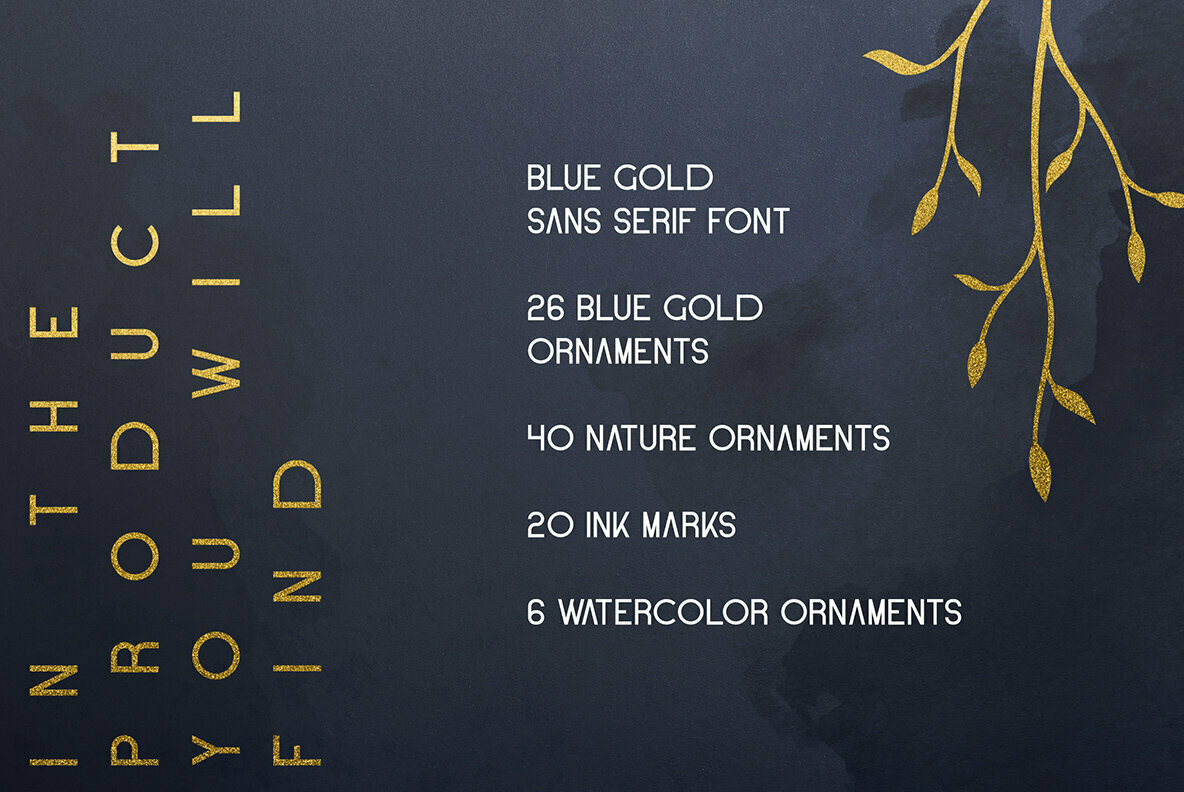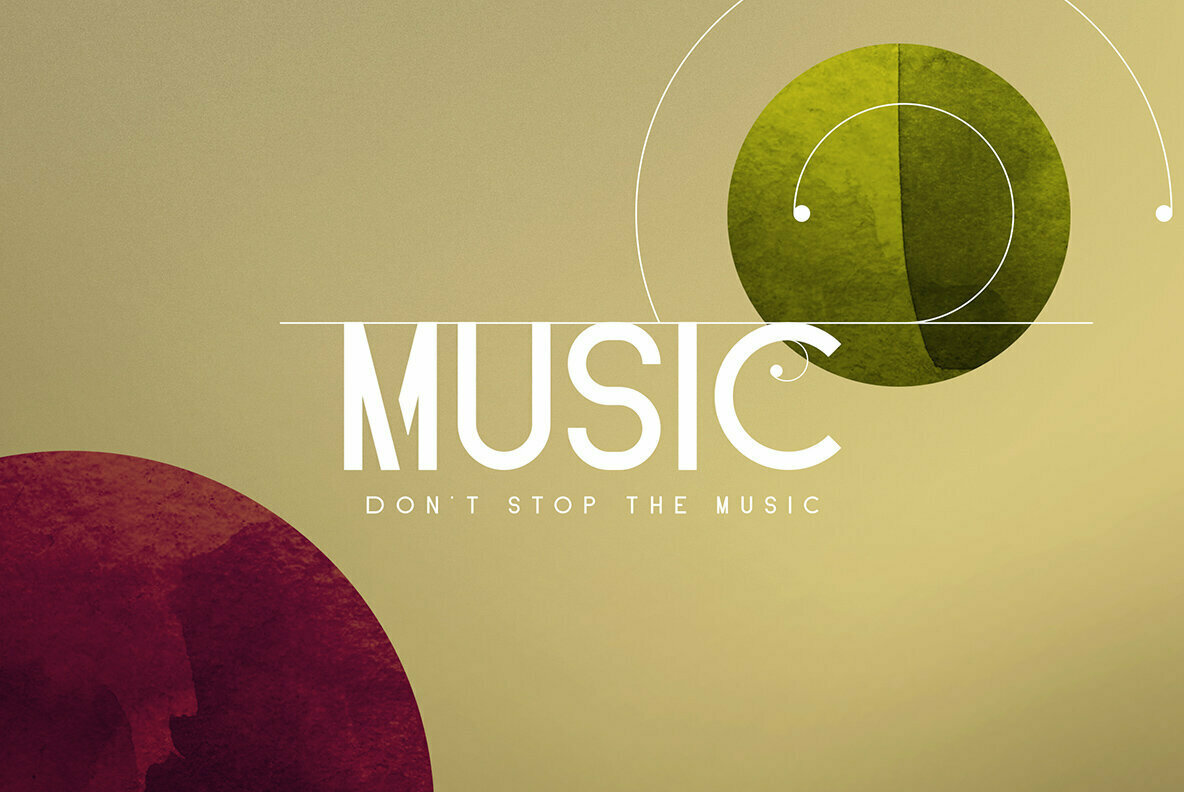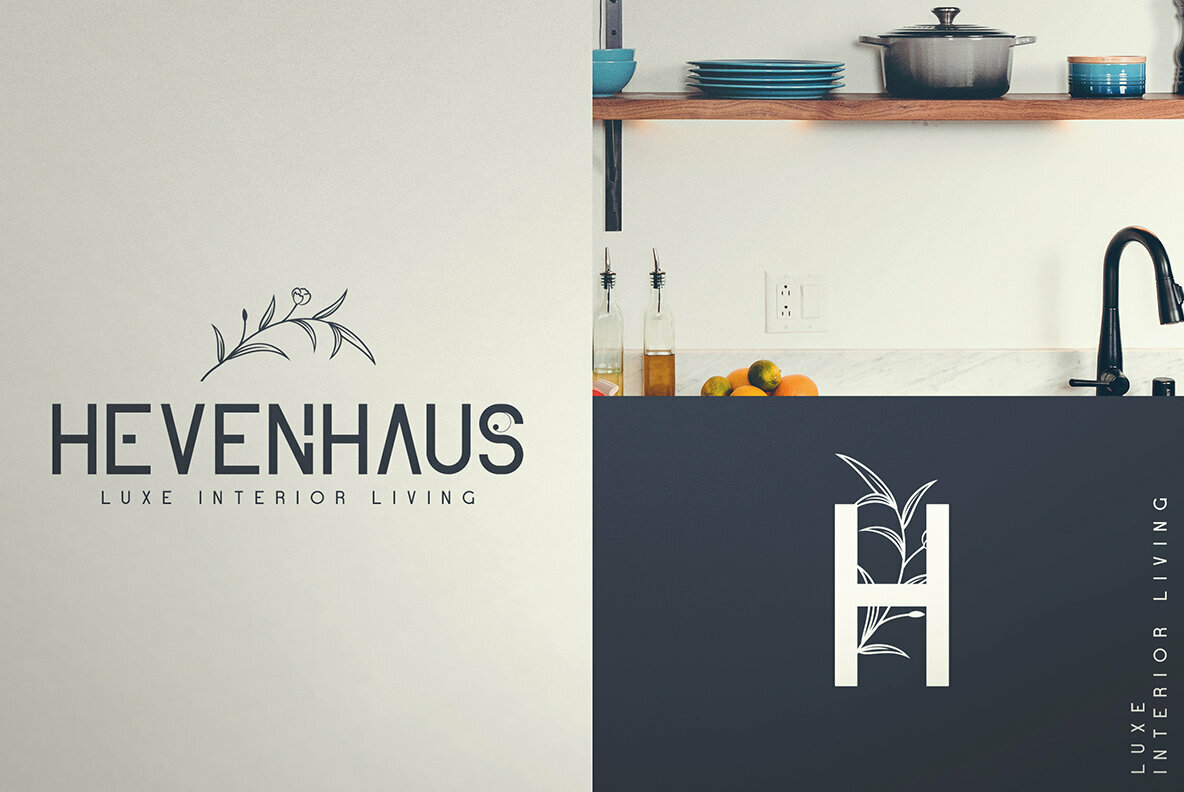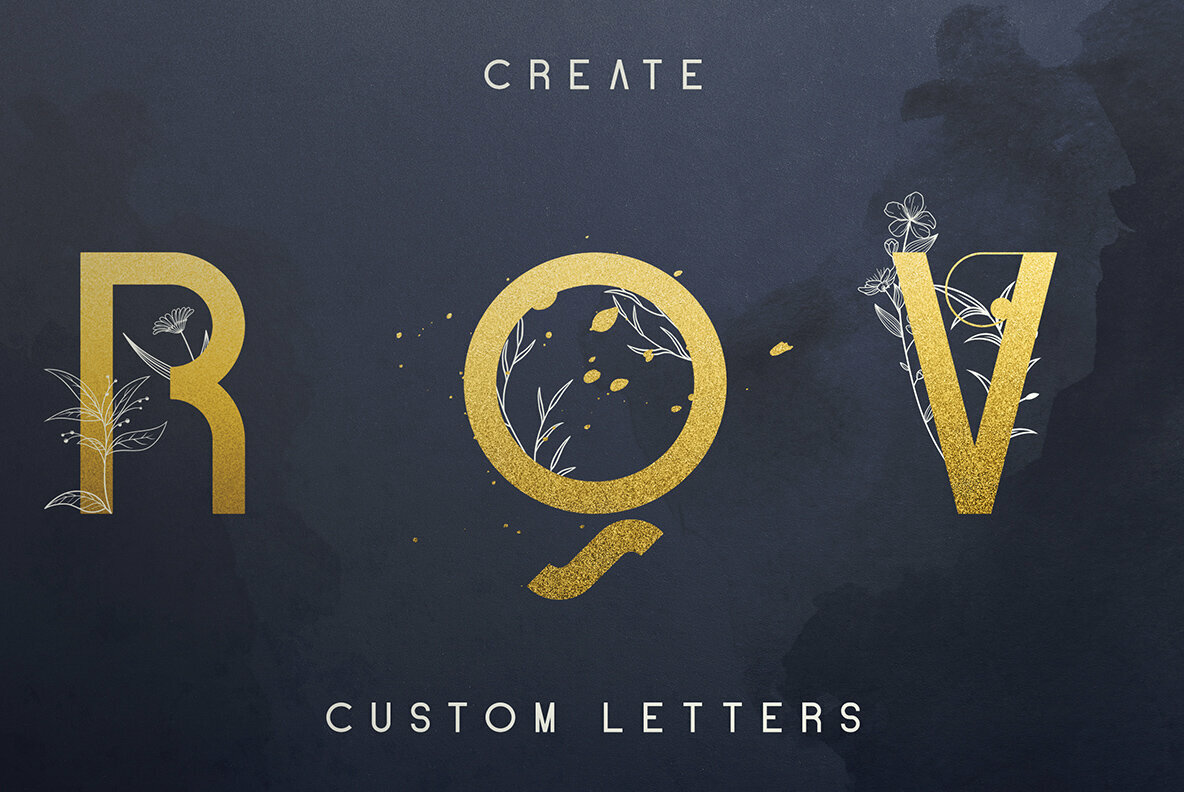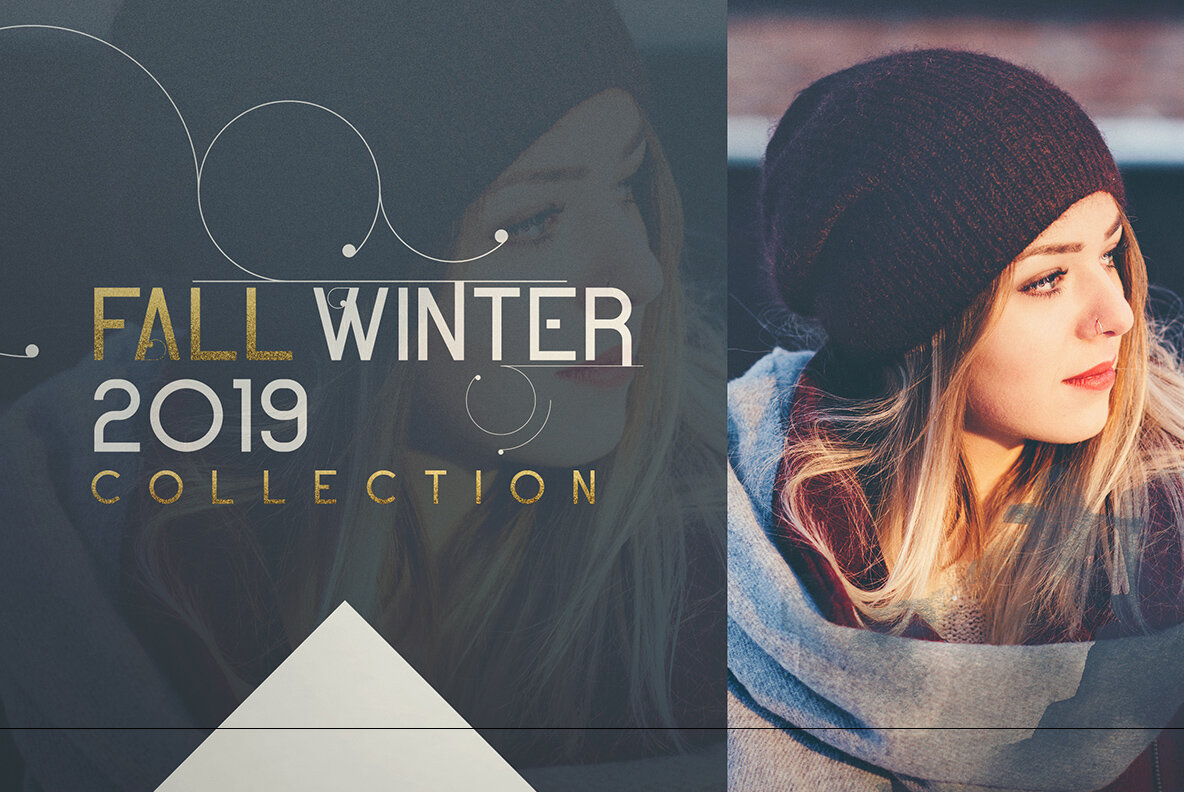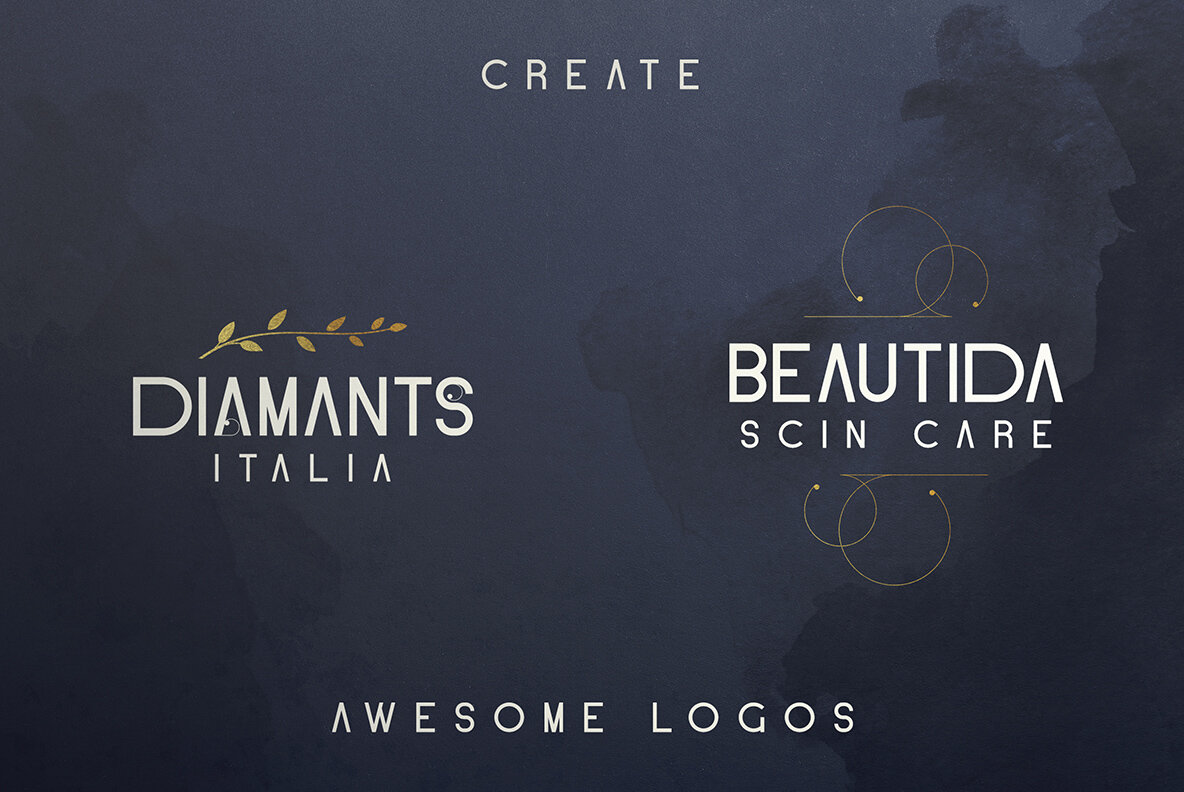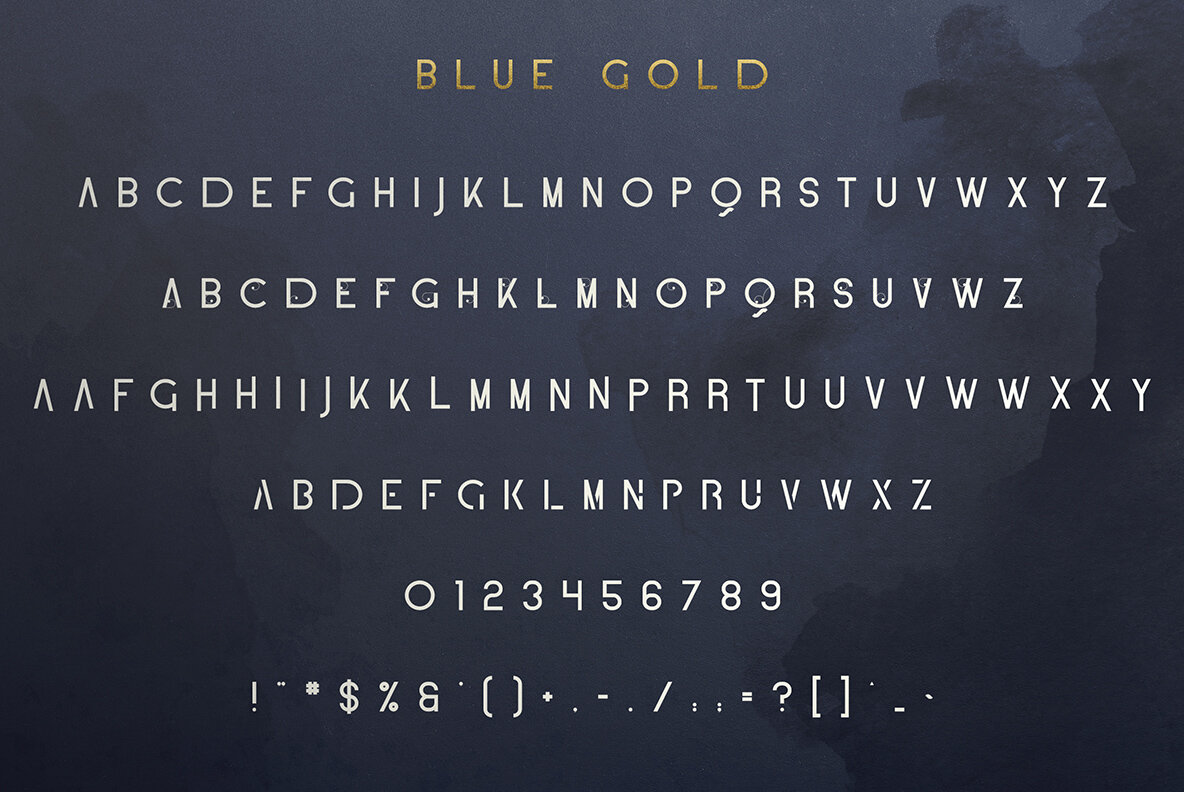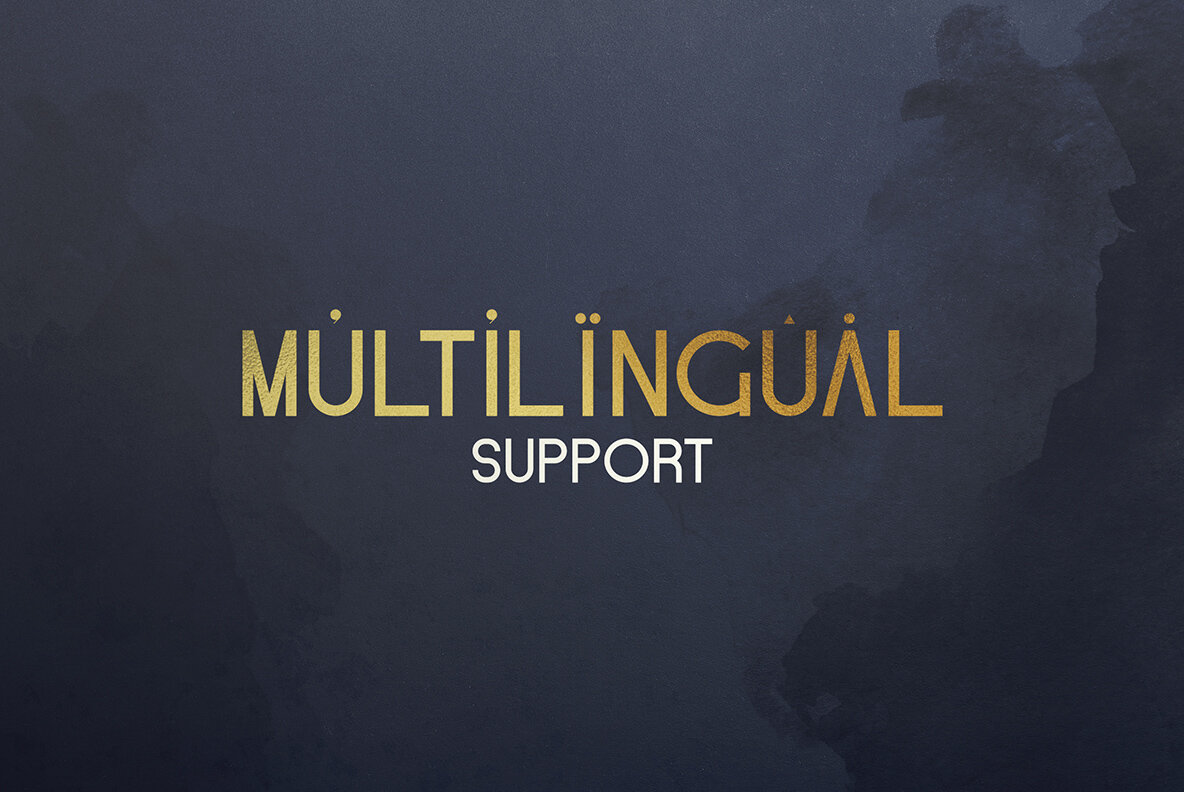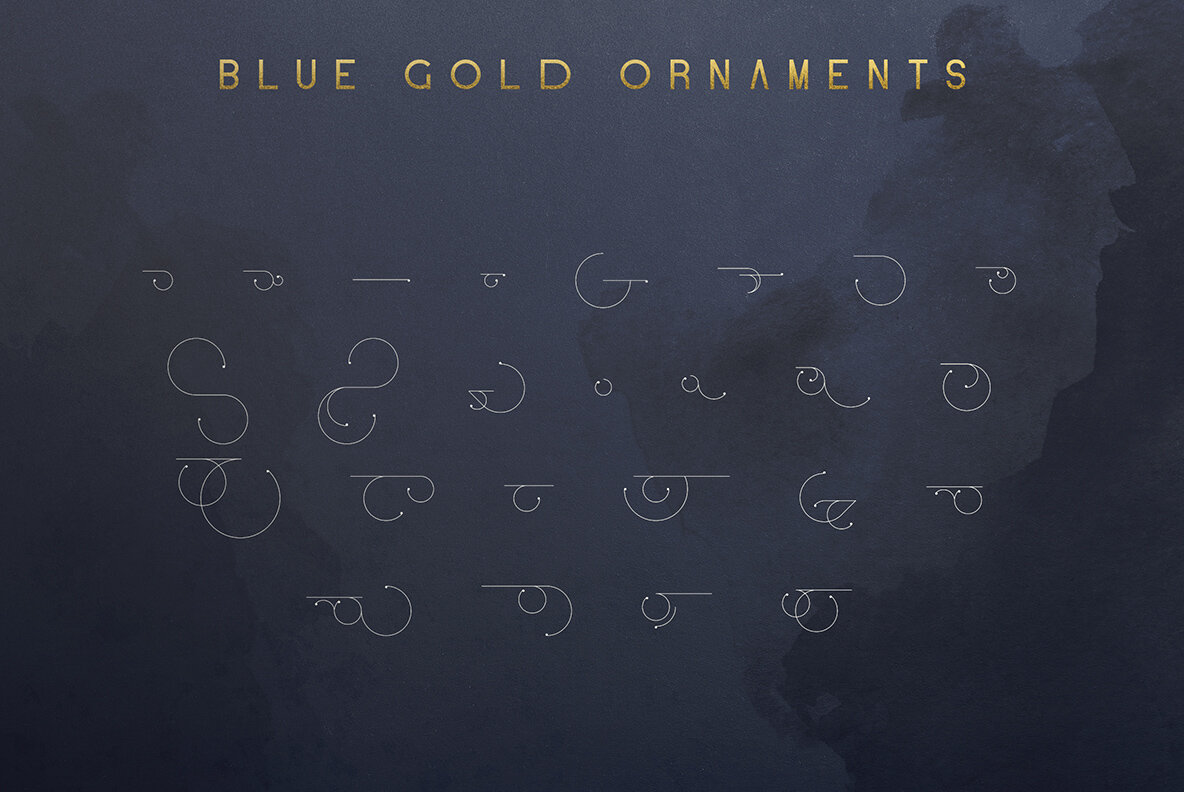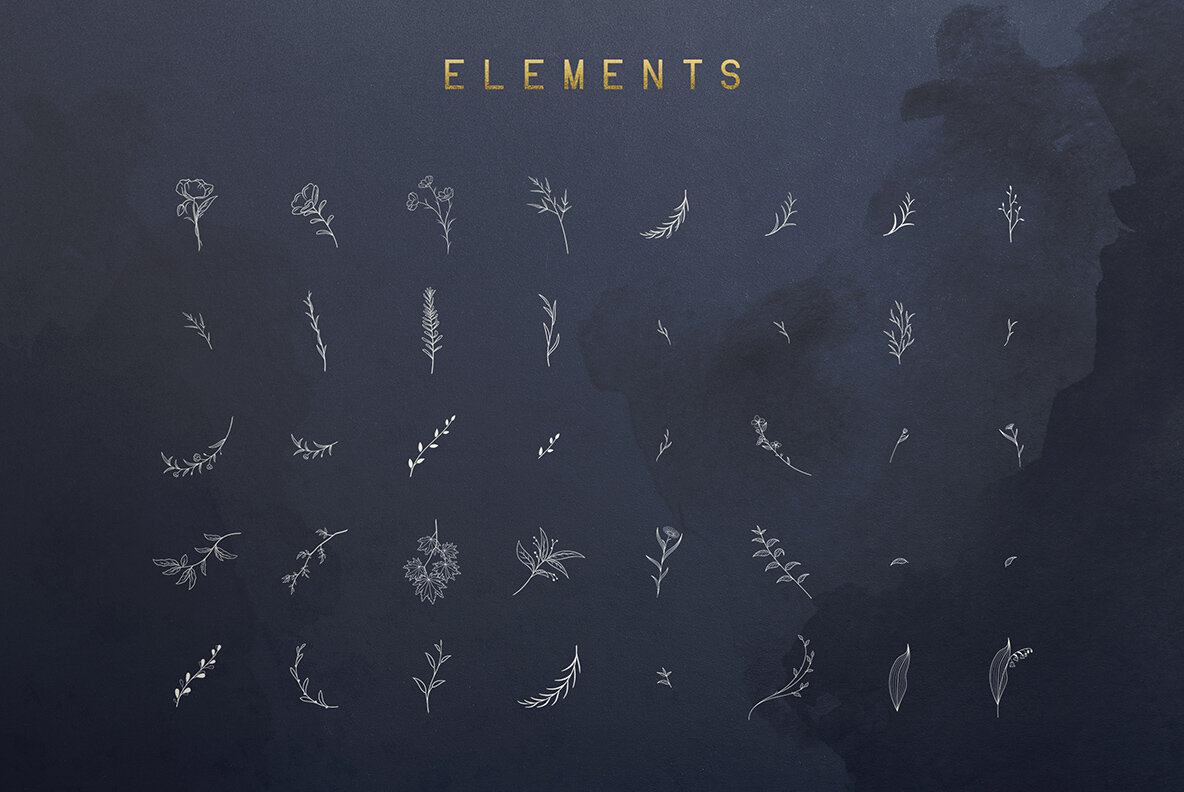
Blue Gold and Extras Font
Blue Gold and Extras (2 fonts)
Blue Gold sans serif font + Extras.
Blue Gold is all caps, clean font with tons of alternative glyphs, ornaments, nature elements, photoshop styles, watercolours, ink marks and multilingual support. It's a very versatile font that works great in large and small sizes.
Blue Gold is perfect for branding projects, home-ware designs, product packaging, magazine headers - or simply as a stylish text overlay to any background image.
- Blue Gold sans serif font with tons of alternative glyphs and multilingual support
- 26 Black Gold ornaments